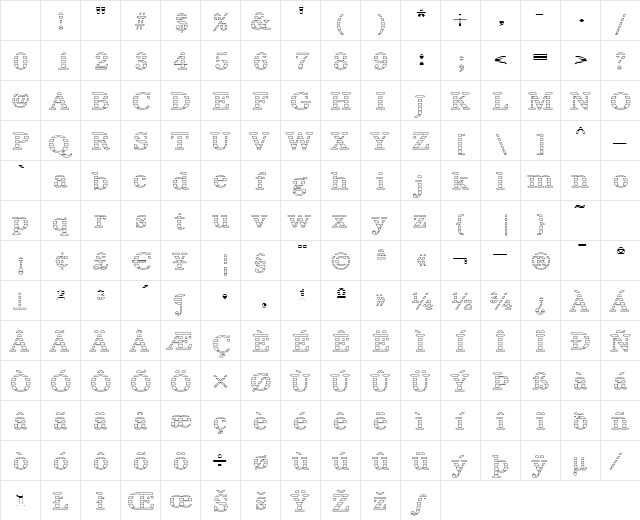
Complete IrisBeckerGradoW-Medium Normal glyph index. Displaying only characters natively supported by IrisBeckerGradoW-Medium Normal font.
IrisBeckerGradoW-Medium is a composed and adaptable typeface that performs quietly and consistently across a wide range of design contexts.